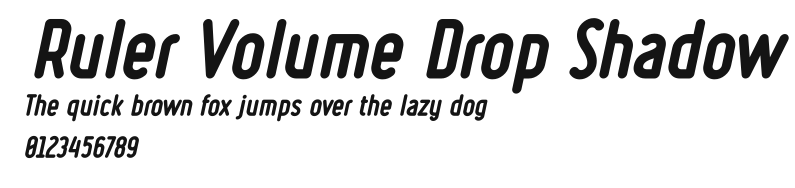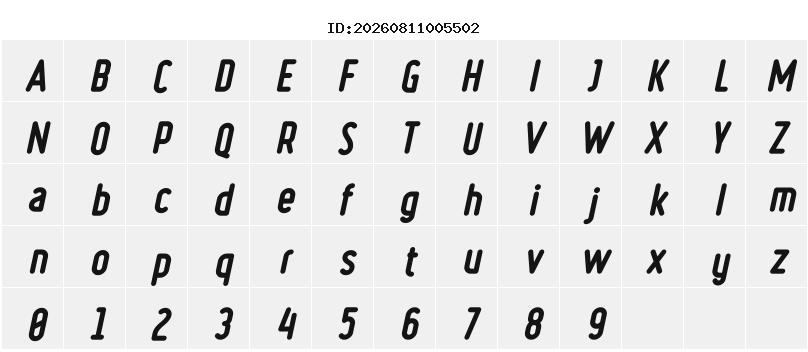
Ruler Volume Drop Shadow Preview
• Font Name: Ruler Volume Drop Shadow
• Font Style: Gras Italique
• Font ID: Ruler Volume Drop Shadow Bold Italic:Version 2.32
• Full Font Name: Ruler Volume Drop Shadow Bold Italic
• Version: Version 2.32 November 20, 2016
• PostScript Name: RulerVolumeDropShadow-BoldItalic
• Character Count: 382
• Designer: Levi Szekeres
• Manufacturer: Levi Szekeres
• Description: Ruler Font
About Ruler Volume Drop Shadow.ttf
Ruler Volume Drop Shadow.ttf is a modern, elegant sans-serif font designed for ultimate readability and visual harmony. Perfect for branding, headlines, web design, and print materials.